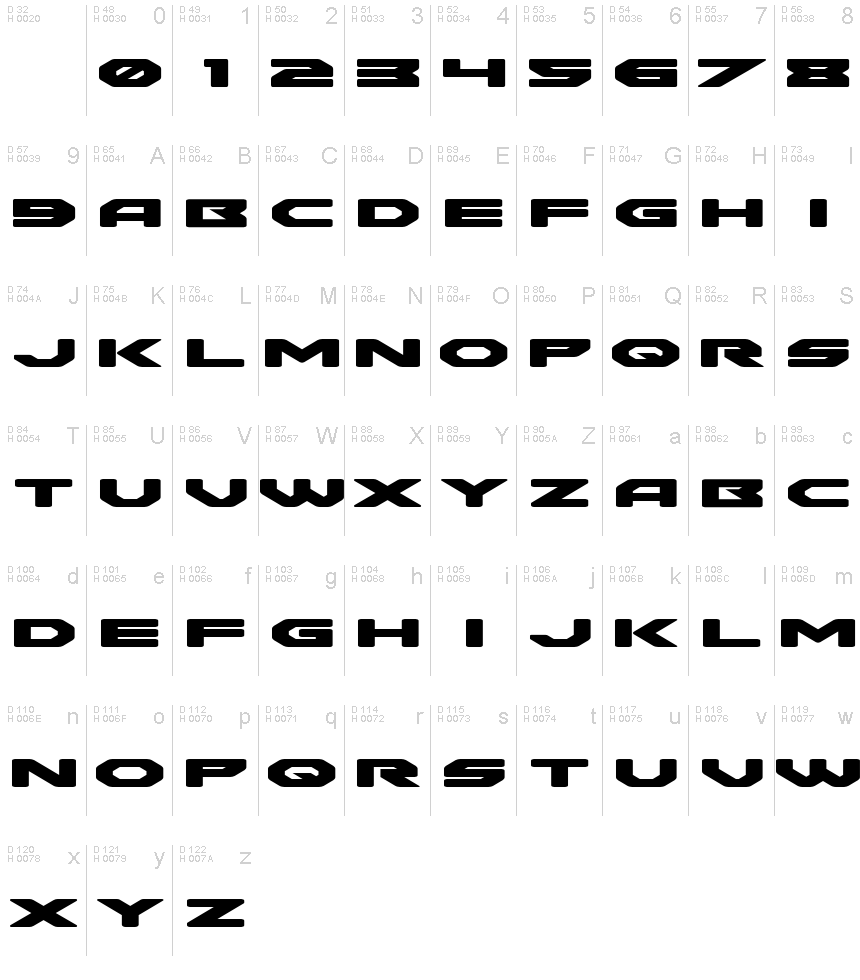
Y2K Brutalism Font
The Y2K Brutalism font, crafted by ASDF Graphics, exudes a bold and futuristic aesthetic. With its expanded, heavily weighted letterforms, this display typeface radiates a sense of raw power and technological innovation. The angular, geometric structures and sharp edges evoke a dystopian, post-apocalyptic vibe, captivating viewers with its striking visual presence.
The Y2K Brutalism font's unapologetic, industrial-inspired design lends itself particularly well to projects that require a commanding, attention-grabbing typeface. From sci-fi-themed branding and movie posters to edgy album covers and cutting-edge web designs, this font's bold personality can elevate the visual impact of a wide range of creative endeavors.